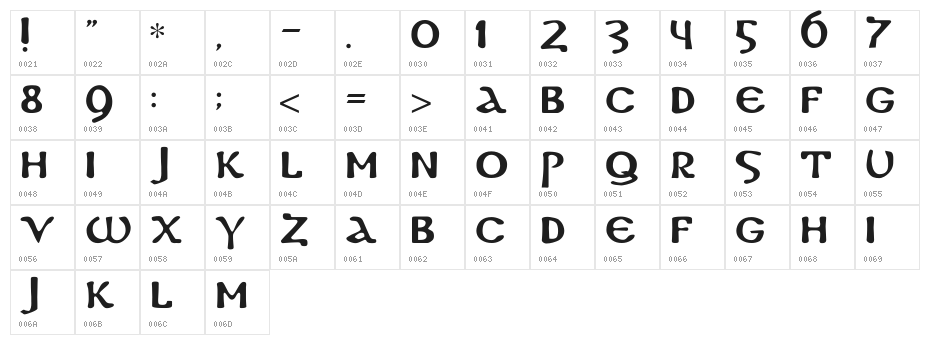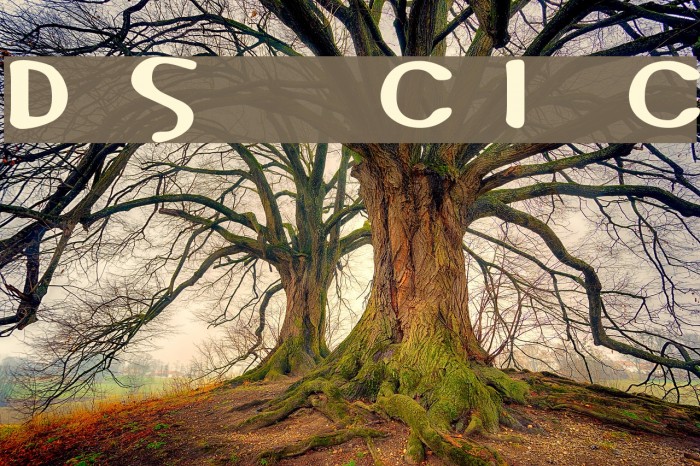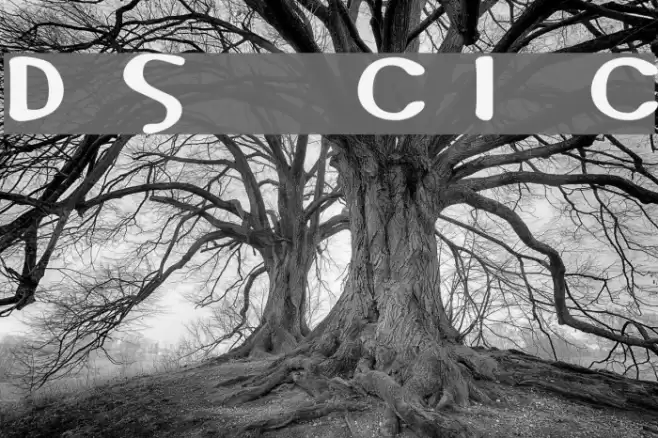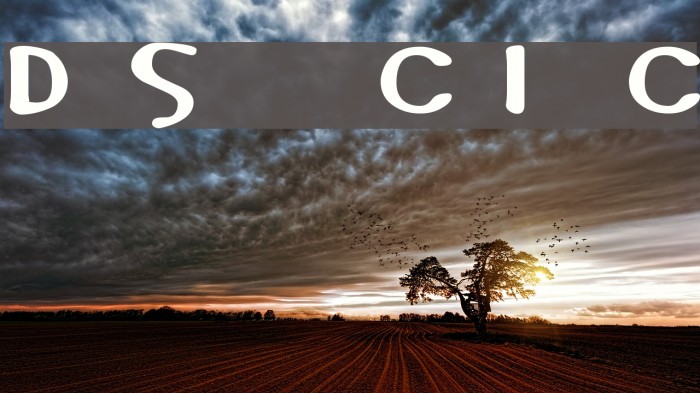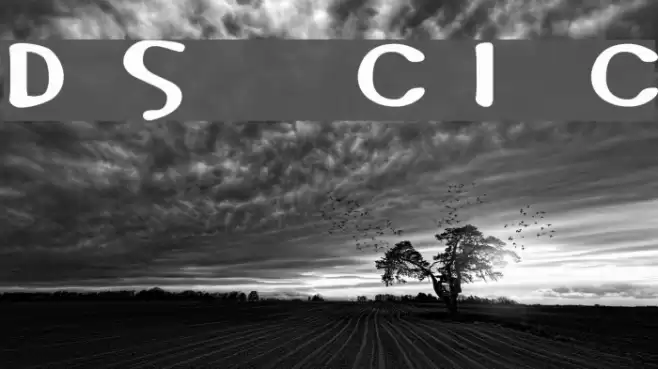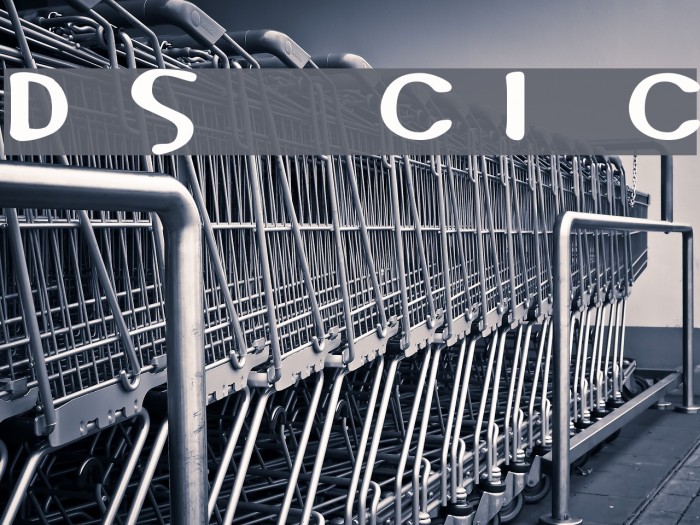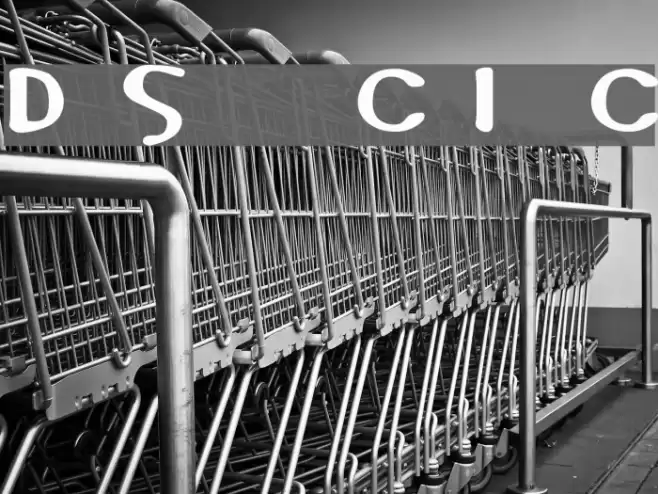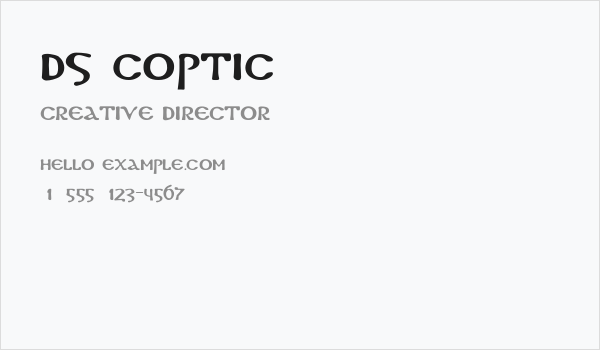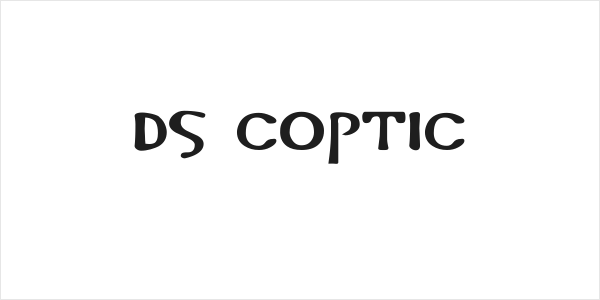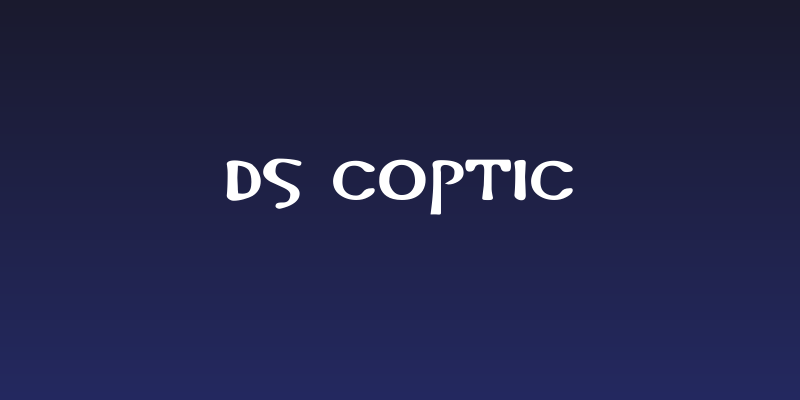
DS Coptic Font
DS Coptic Description
This font features a unique blend of traditional and modern elements, characterized by its distinct, rounded shapes and subtle serifs. The letters exhibit a playful yet structured form, with a slight tilt that adds a dynamic feel. The numbers and special characters maintain this style, ensuring consistency across all glyphs. The font's design is reminiscent of ancient scripts, giving it a historical yet contemporary appeal. Its bold strokes and moderate contrast make it highly legible, suitable for various design applications.